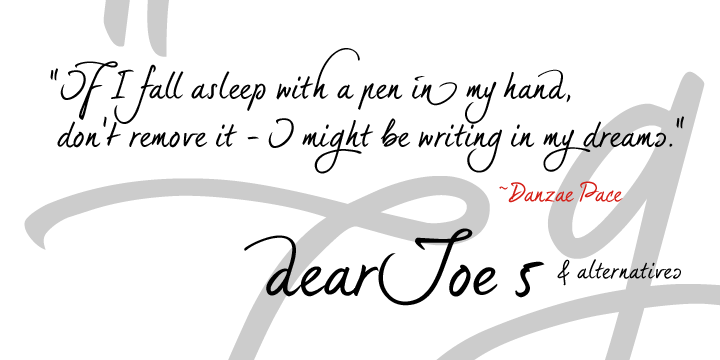
dearJoe 5 is a hand drawn font family. This typeface has two styles and was published by JOEBOB Graphics.
After months of sketching, drawing, tracing and kerning I am proud to present a new member of the dearJoe family: here’s dearJoe 5.
This one was created by writing all characters with a thick HB pencil and then tracing them very tightly, which resulted in a more clean and constructed look than the previous dearJoes and it also explains the font having rounded corners here and a pointy end there: a pencil’s point tends to vary its shape because it continuously wears down a bit when writing with it.
The font comes with a little curly brother to provide you with a complete alternative alphabet to play around with. If you want to create plain text, dearJoe 5 will do fine, but in case you would like -let’s say- a header above that text with a bit more eye-catching upper case or a bit variety in lower case, just exchange the dearJoe 5 character with the one that is in the alternatives font and you will be pleasantly surprised… a bit of manual kerning between the two might be needed though.
DearJoe 5 contains all the special signs, dearJoe 5 alternatives only contains characters…